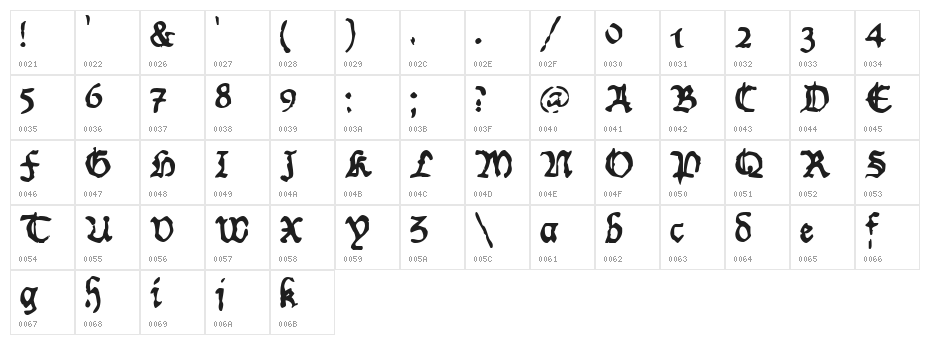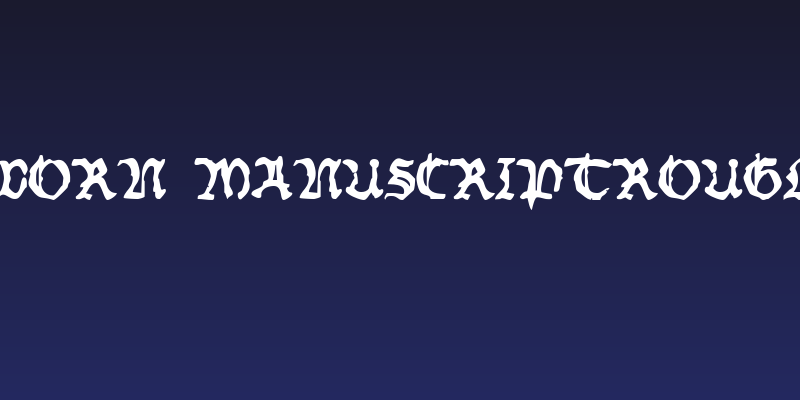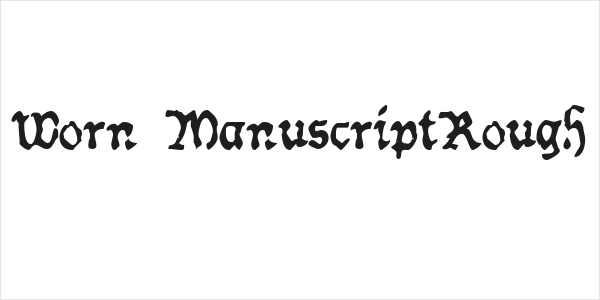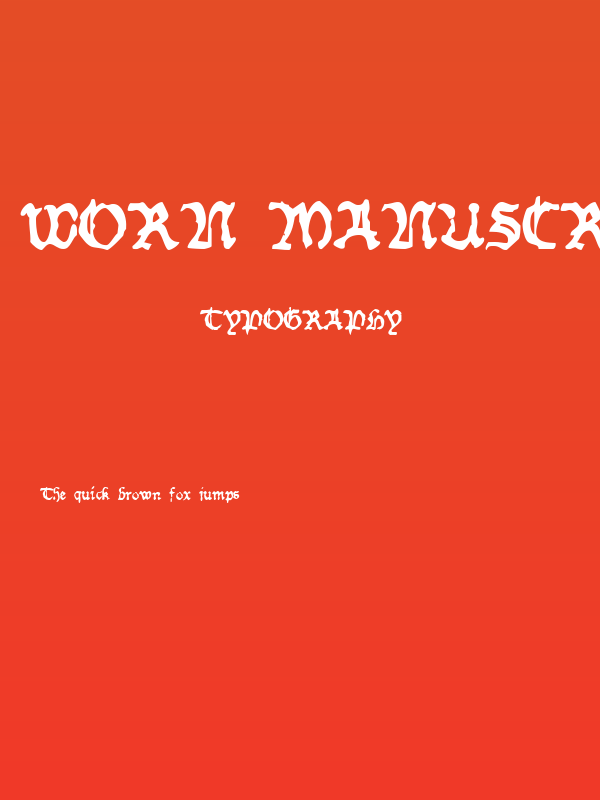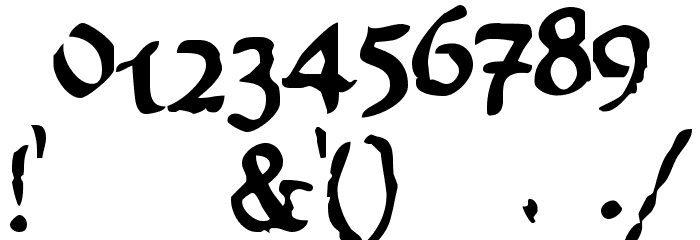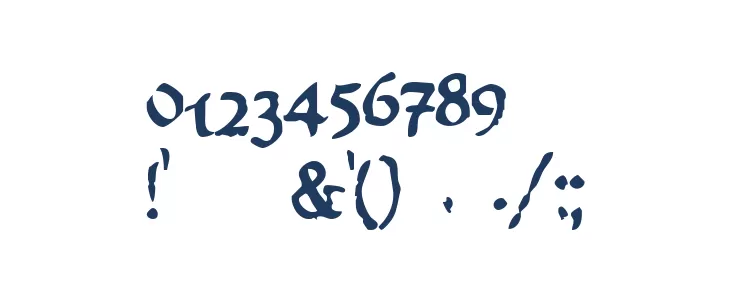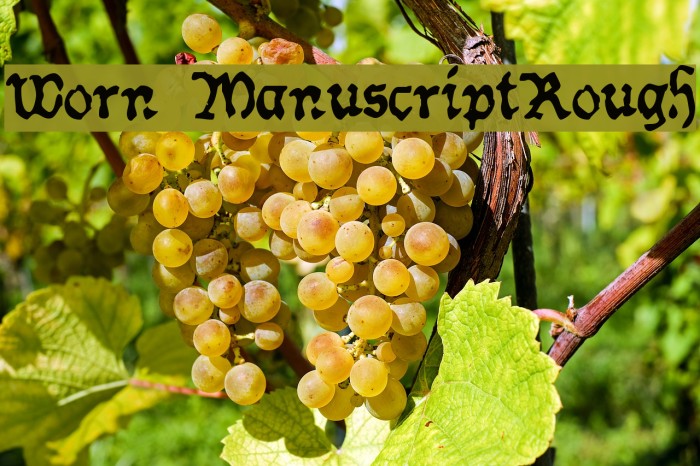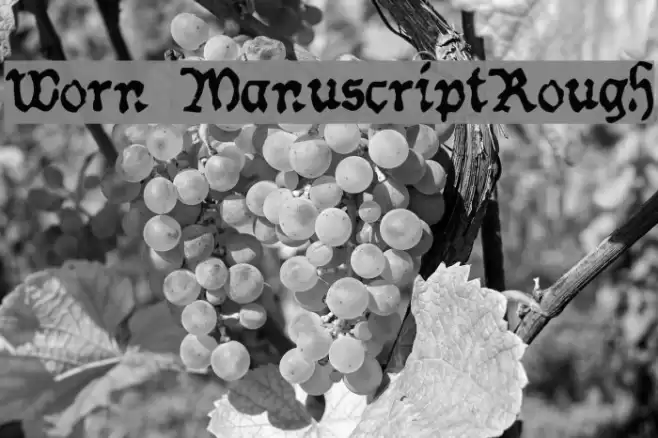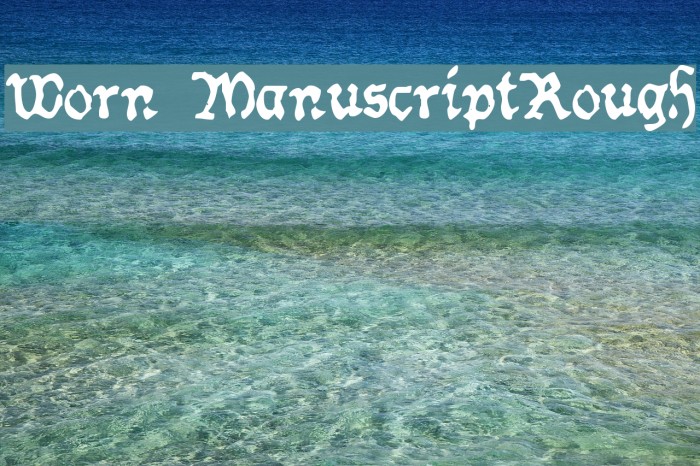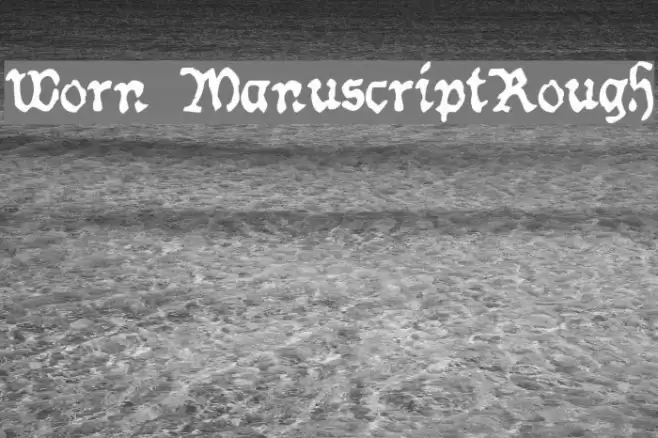
Worn ManuscriptRough Font
| Категория | Gothic |
| Общий стиль | Vintage |
| Область применения | Headlines, Logos, Decorative text |
| Рекомендуемые проекты | Ideal for historical documents, themed invitations, artistic designs, and branding that requires an antique touch. |